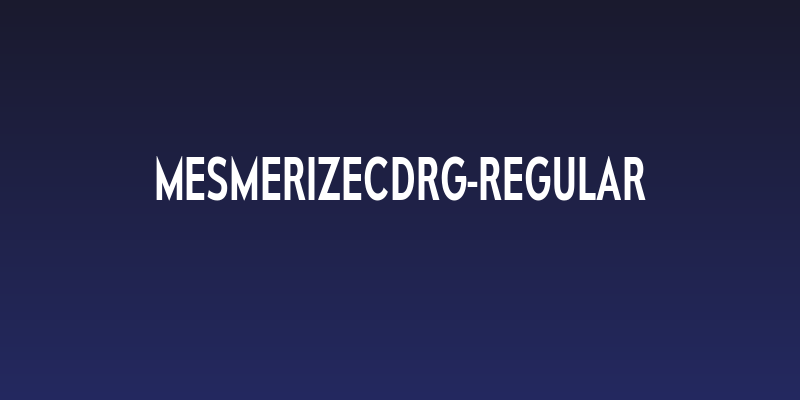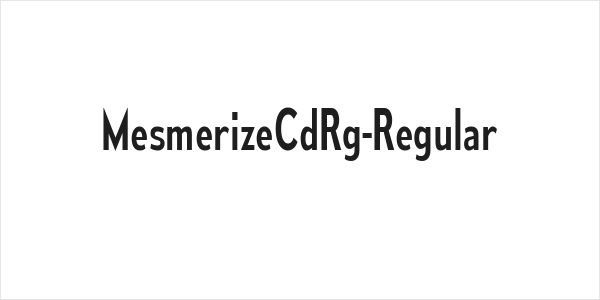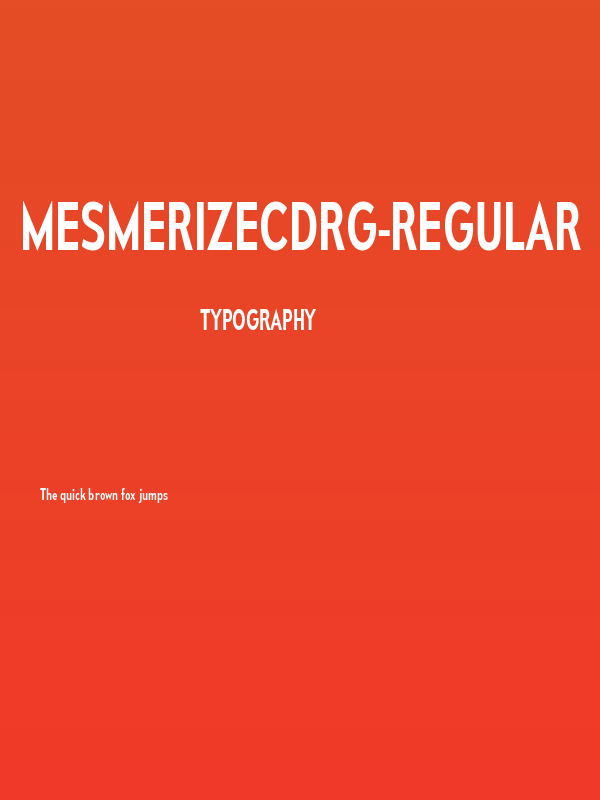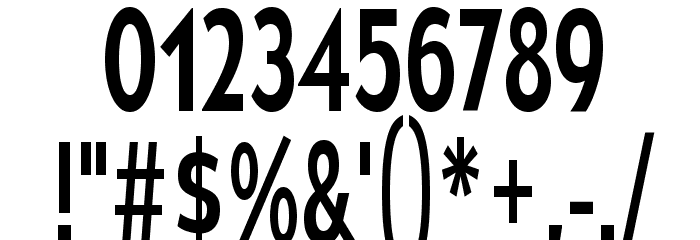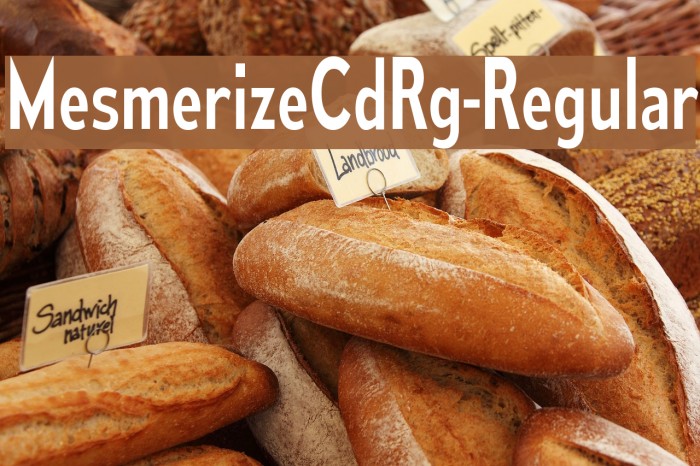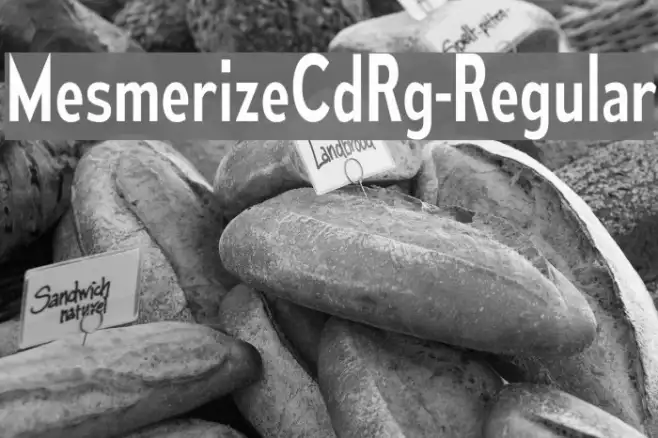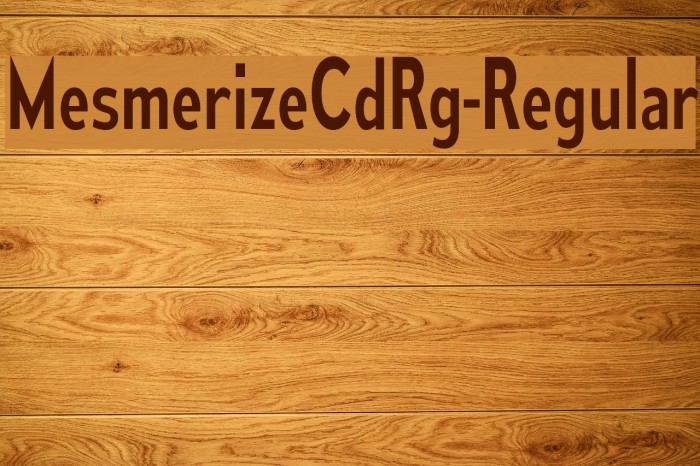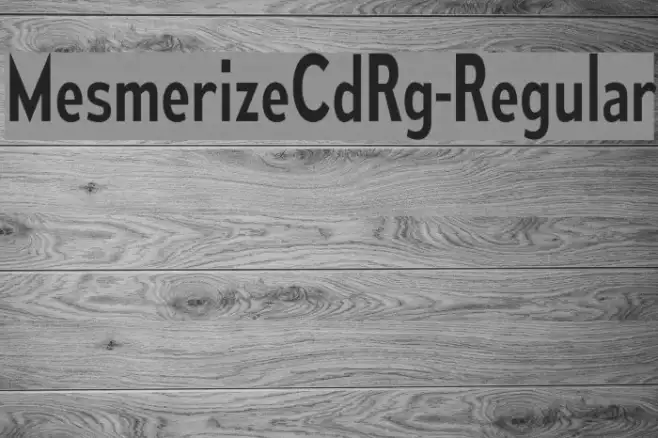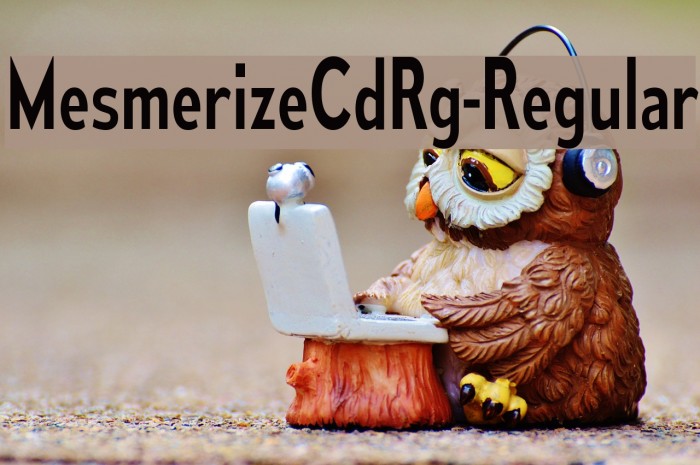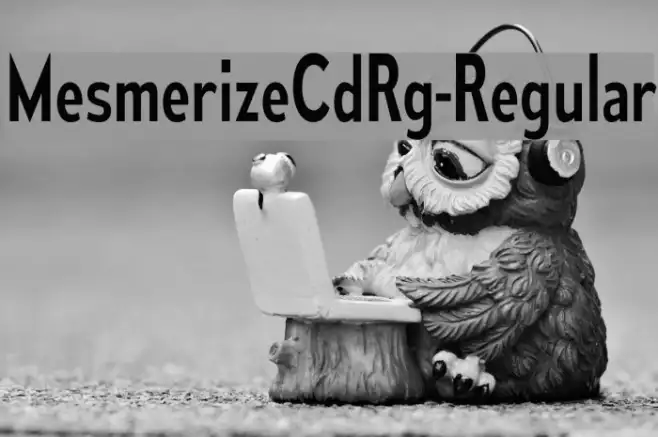
MesmerizeCdRg-Regular Font
✎ Sans Serif
MesmerizeCdRg-Regular Description
This font features a bold and modern sans-serif design with clean, straight lines and a strong presence. The uppercase letters are uniform in height, creating a cohesive and structured appearance. The lowercase letters maintain a similar width, ensuring readability and balance. The numerals are clear and distinct, matching the overall style of the alphabet. Special characters are well-defined, adding versatility to the font. The design is suitable for a variety of applications, offering a contemporary and professional look.
| Width | Condensed |
| Use Case | Headlines, Logos, Branding |
| Proposed Projects | Ideal for branding, advertising, headlines, and digital media projects. |